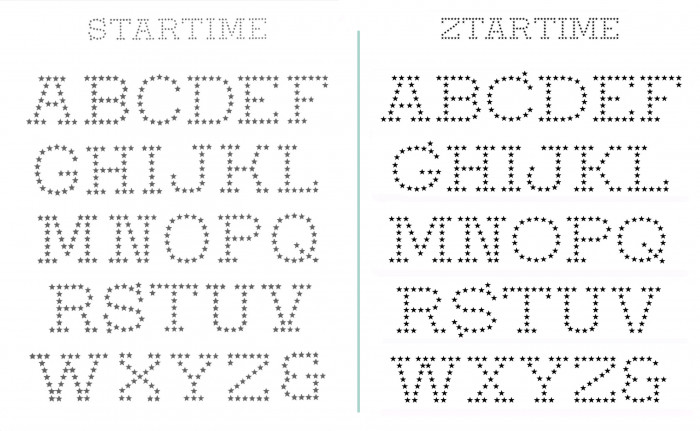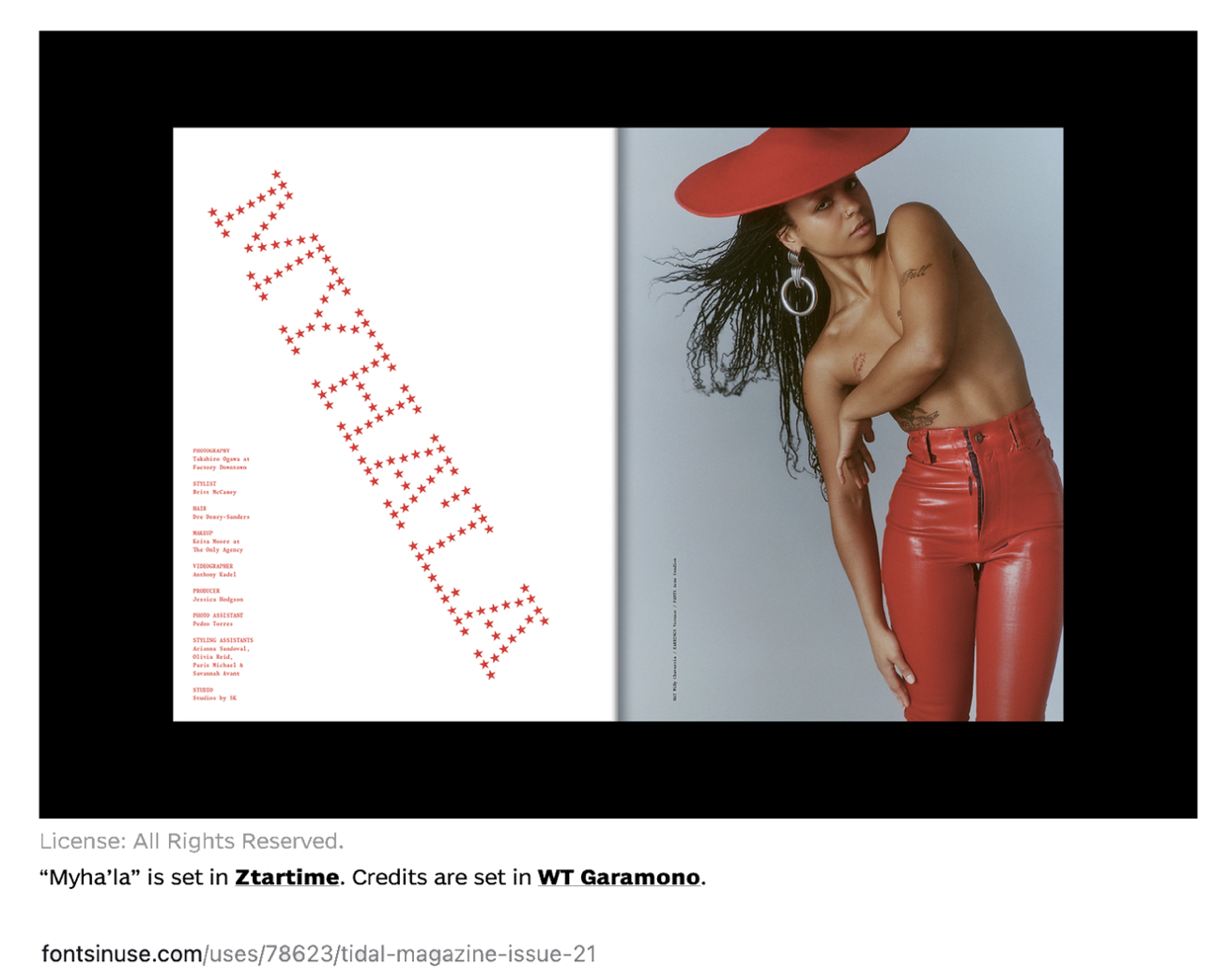
• Recreation of the fantastic font Startime, from the compilation "Circus Alphabets" (1989) by the great Dan X. Solo. I've modified some glyphs (C, G, J, K, V, W, X, &, 3, 5, 6, 7, 8, 9, ?, !, *, (, ), $, €, £, ¥, etc...) and added a lot of them, including accents and other diacritics. Some alternates were also included in the lowercase area. A personal hommage to a font from my youth, which I felt encouraged to finish after admiring the magistral and excellent work of Frodo7 Abruzzo DS.
Recreation of the fantastic font Startime, from the compilation "Circus Alphabets" (1989) by the great Dan X. Solo. I've modified some glyphs (C, G, J, K, V, W, X, &, 3, 5, 6, 7, 8, 9, ?, !, *, (, ), $, €, £, ¥, etc...) and added a lot of them, including accents and other diacritics. Some alternates were also included in the lowercase area. A personal hommage to a font from my youth, which I felt encouraged to finish after admiring the magistral and excellent work of Frodo7 Abruzzo DS.
This would go great with F37 Wyman to make a text American flag.
Cool. You definitely improved the original font, and thanks to fonstrucct, the stars can be replaced with other shapes.
“ztartime” in the magazine Tidal #21 (august 2026). Thanks to the friends at Fonts In Use!